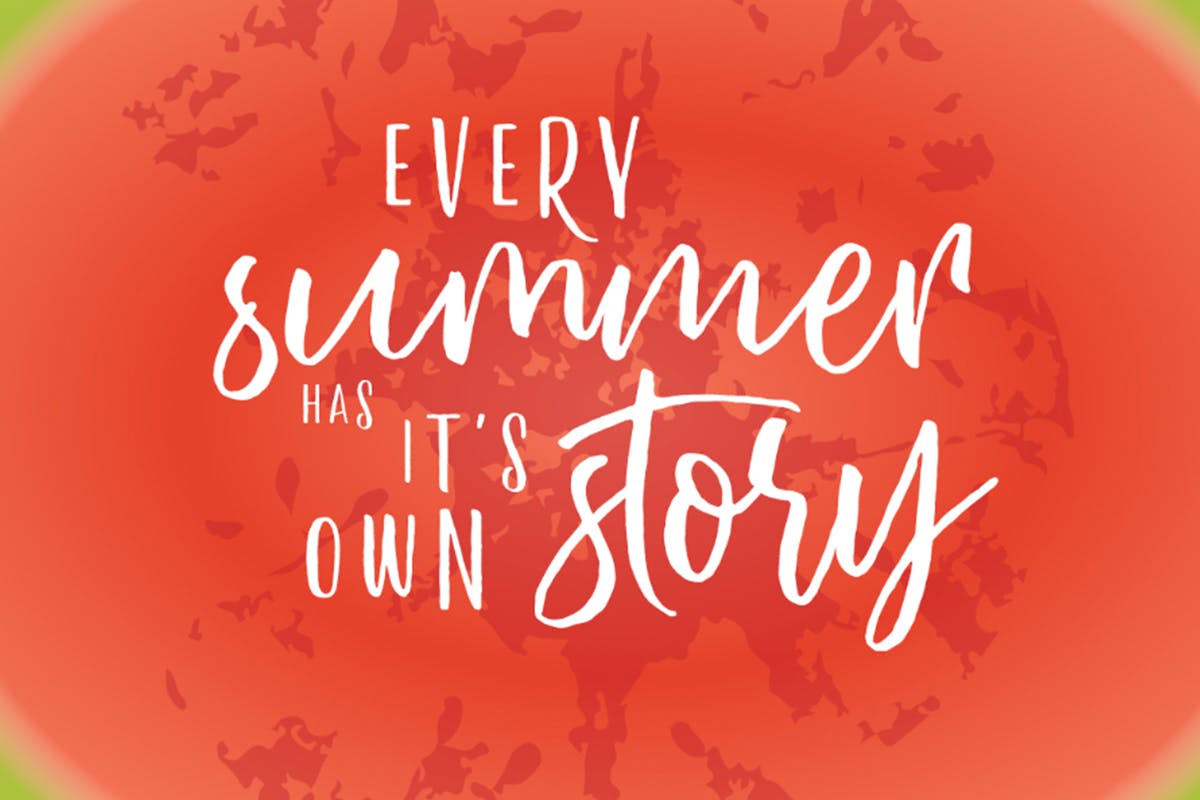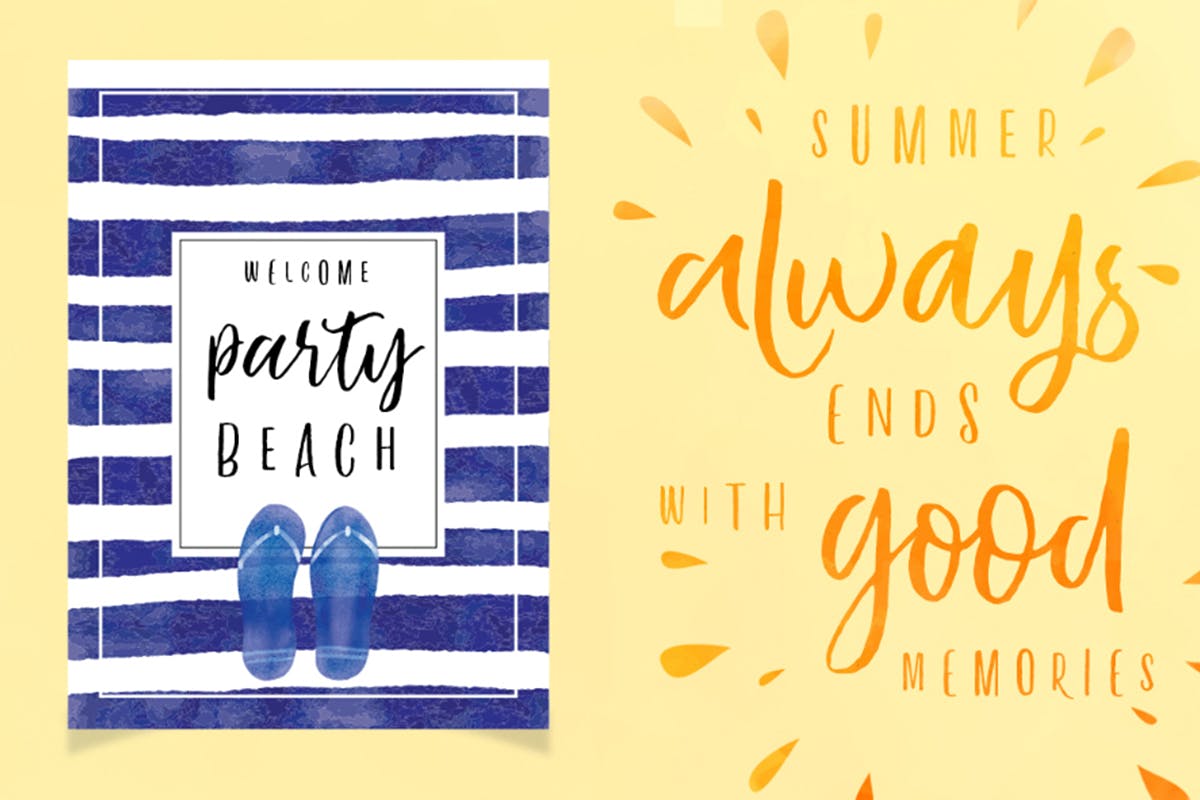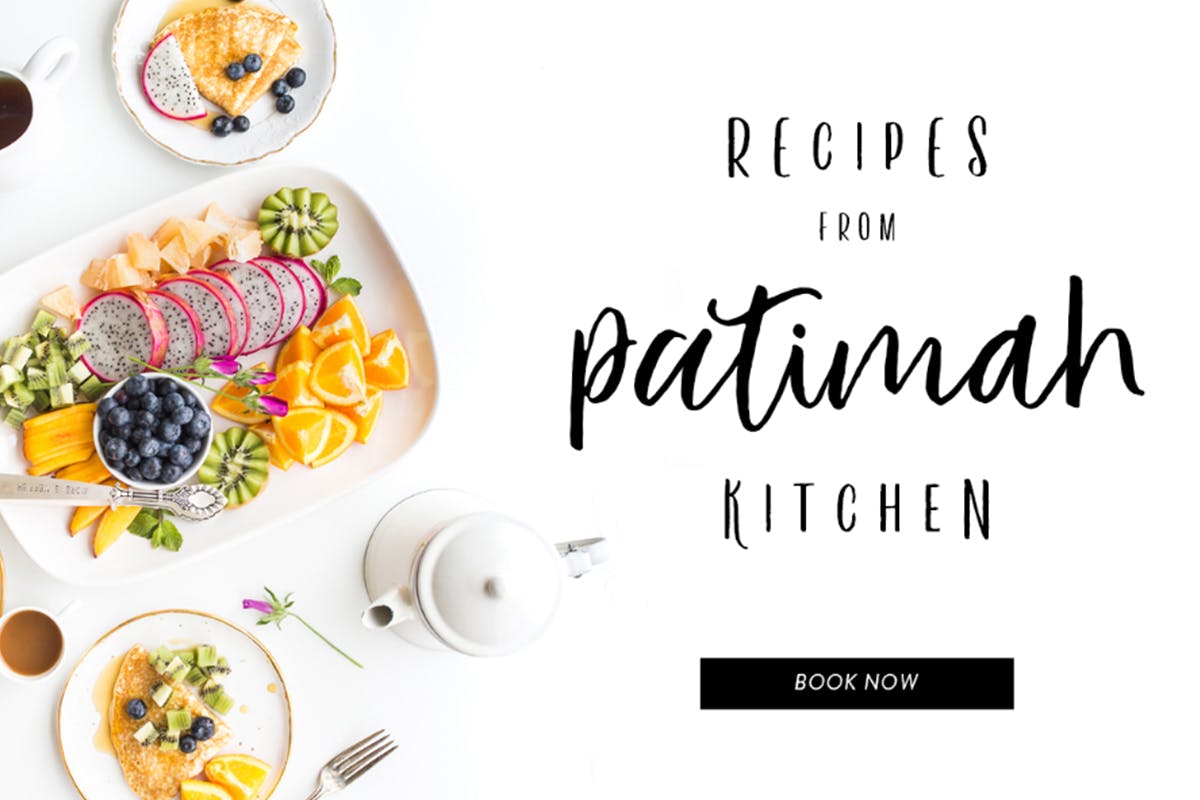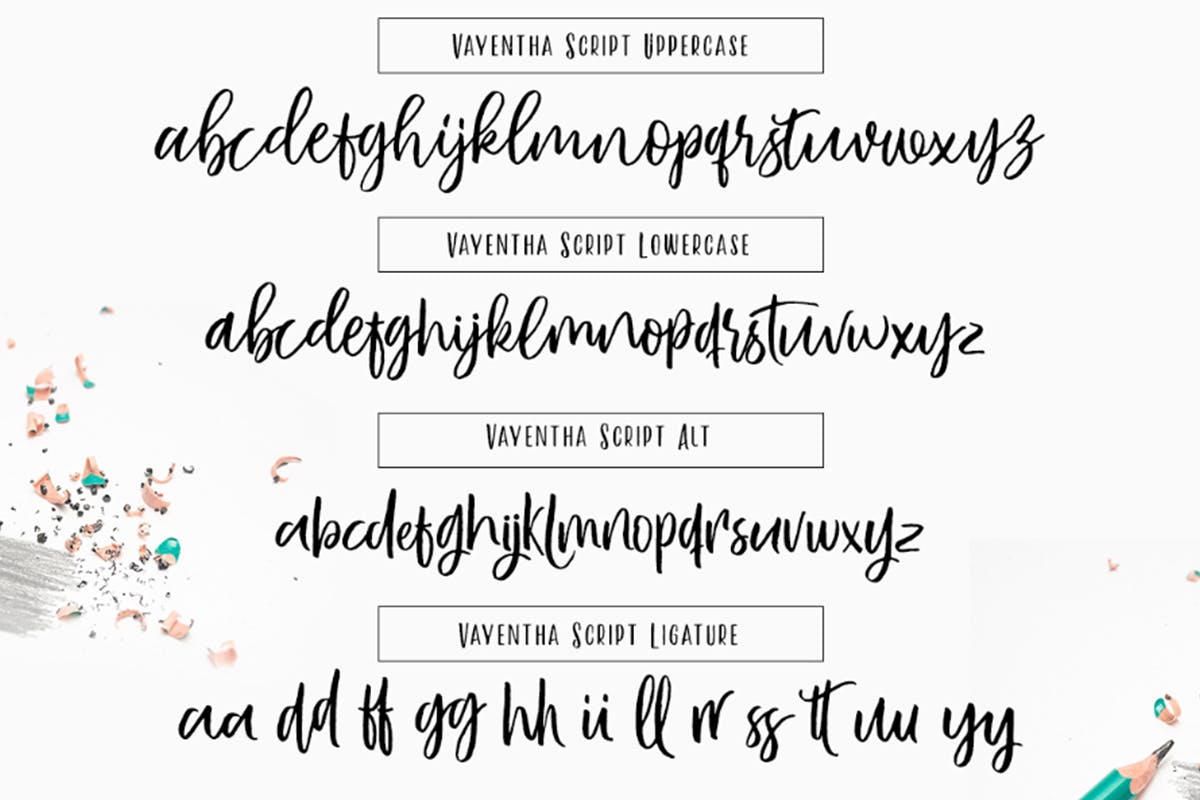
Vayentha Font Duo Free Demo
Vayentha Font Duo Free Demo is a set of sans and script typeface which made out of real hand lettering. Since these fonts complement each other, it is great to combine both to get a more interesting look. Vayentha will be ideal for poster, printable design such as card, advertising banner, label and so much more!